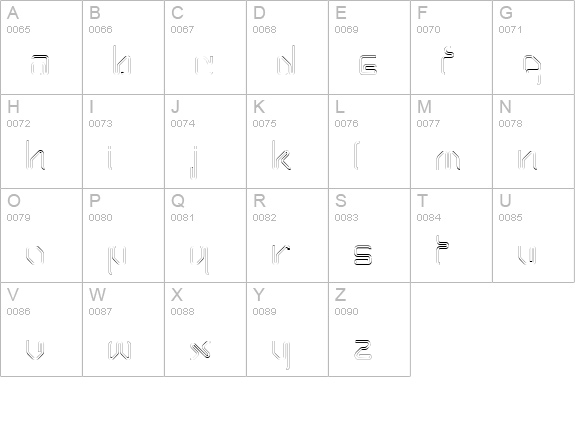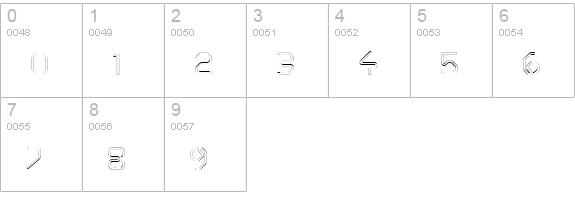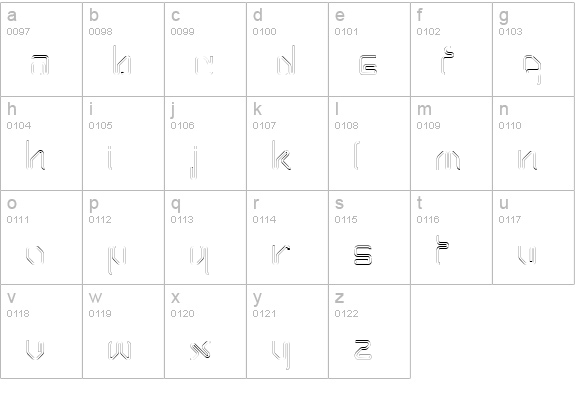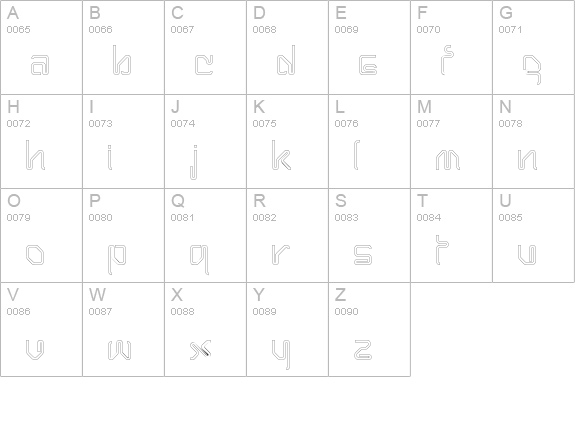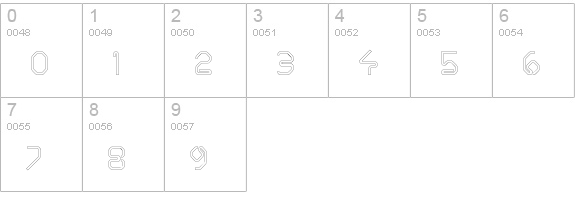
Hairpin Regular is the standard, neutral variant in the Hairpin typeface family \xE2\x80\x94 well suited to general body text, paragraphs, and standard typographic work.
Hairpin Regular is a versatile and stylish font that exudes elegance and sophistication. With its clean lines and graceful curves, this font is perfect for adding a touch of class to any design project. Whether you're creating a logo, designing a website, or crafting a beautiful invitation, Hairpin Regular is sure to make a lasting impression. This font features a balanced blend of modernity and traditional charm, making it suitable for a wide range of applications. Its legible and well-defined characters ensure readability, while its unique flourishes add a touch of personality. The versatility of Hairpin Regular allows it to adapt seamlessly to various design styles, whether you're going for a minimalist look or a more ornate aesthetic. One of the best aspects of Hairpin Regular is that it is free to download at FontsMarket.com. This means that you can enjoy the beauty and functionality of this font without any cost. Whether you're a professional designer or a hobbyist, having access to high-quality fonts like Hairpin Regular can greatly enhance your creative projects. So why wait? Enhance your designs with the timeless elegance of Hairpin Regular. Download it for free at FontsMarket.com and experience the beauty and versatility of this stunning font.